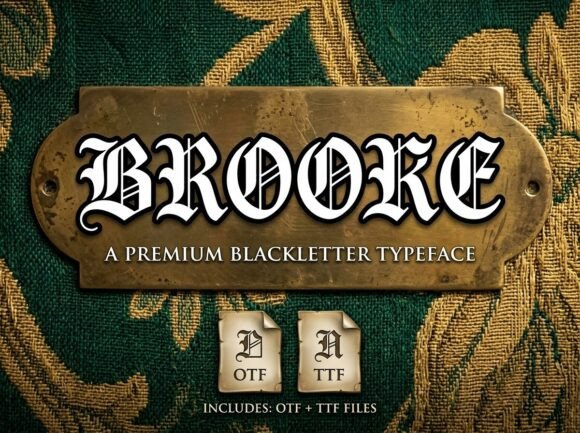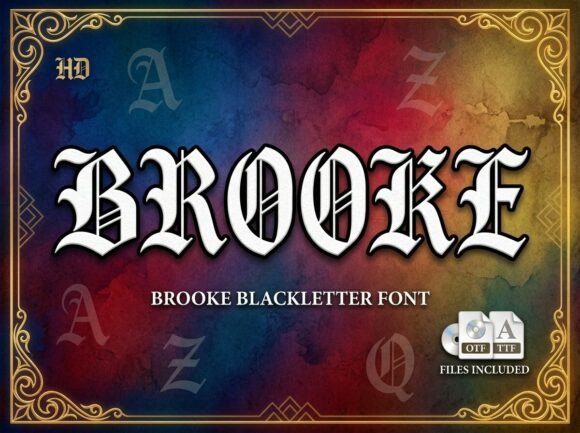
Command Historical Authority with Brooke: The Premium Blackletter Font
In the realm of typography, few fonts evoke the sense of history, luxury, and mystery as effectively as Brooke, a premium blackletter font designed to leave a monumental impact. This exquisite typeface is a masterful blend of sharp, rhythmic vertical strokes and dramatic flared terminals, capturing the essence of ancient calligraphy and transporting users to a bygone era of grandeur and sophistication.
The Essence of Brooke: A Gothic-Manuscript Soul
Brooke’s design is deeply rooted in the traditions of blackletter typography, with a keen focus on the gothic-manuscript style that was prevalent in medieval Europe. This style, characterized by its dramatic flourishes and intricate details, was often used in illuminated manuscripts and other significant documents of the time. Brooke brings this historical aesthetic into the modern era, offering a font that is both a nod to the past and a versatile tool for contemporary design needs.
AUTHORITATIVE WEIGHT AND CLASSIC SILHOUETTE
One of the defining features of Brooke is its authoritative weight. This premium blackletter font boasts a substantial presence on any medium, making it the perfect choice for projects that require a sense of gravitas and luxury. The classic silhouette of Brooke, with its sharp vertical strokes and elegantly flared terminals, adds a touch of timelessness to any design, ensuring that it remains relevant and impactful across various platforms and applications.
APPLICATIONS OF BROOKE: WHERE LUXURY MEETS CREATIVITY
Brooke’s versatility and distinctive style make it an ideal choice for a wide range of applications. Here are a few areas where Brooke truly shines:
- Luxury Spirit Labels: For high-end spirits, Brooke offers a way to convey luxury, heritage, and exclusivity. Its dramatic appearance can elevate the branding of any premium alcohol, setting it apart in a crowded market.
- Independent Fantasy Publishing: Authors and publishers of fantasy literature often seek to create an immersive and authentic world for their readers. Brooke, with its medieval flair, can add a layer of depth and realism to book covers, titles, and marketing materials.
- Artisanal Craft Brewery Branding: Craft breweries often look for unique and memorable branding that reflects their artisanal approach and high-quality products. Brooke can help breweries stand out with a distinctive and compelling visual identity.
- Cinematic “Dark-Academia” Social Media Headers: The “dark-academia” aesthetic, popularized by films and social media, evokes themes of mystery, intelligence, and elite knowledge. Brooke’s Gothic-inspired design is a natural fit for creating captivating headers and promotional materials that resonate with this aesthetic.
Why Choose Brooke?
Choosing Brooke for your design project means selecting a font that is not only visually stunning but also rich in history and connotation. Its unique blend of traditional blackletter elements with a modern edge makes it a versatile tool that can be used across various mediums, from digital platforms to print materials.
Moreover, Brooke’s design ensures legibility and impact, making it suitable for headlines, titles, and any design element where you want to leave a lasting impression. Its premium quality reflects a commitment to excellence, making it an excellent choice for brands and creators who wish to convey a sense of luxury, authority, and craftsmanship.
Brooke stands out as a premium blackletter font that commands historical authority and exudes a sense of luxury and mystery. Its sharp, rhythmic strokes and dramatic terminals evoke the soul of ancient calligraphy, making it a powerful tool for designers and crafters looking to add depth and gravitas to their projects. Whether you’re working on luxury branding, publishing, or cinematic aesthetics, Brooke offers the perfect blend of classic elegance and modern versatility.
Embrace the monumental impact of Brooke and elevate your designs to new heights of sophistication and intrigue.